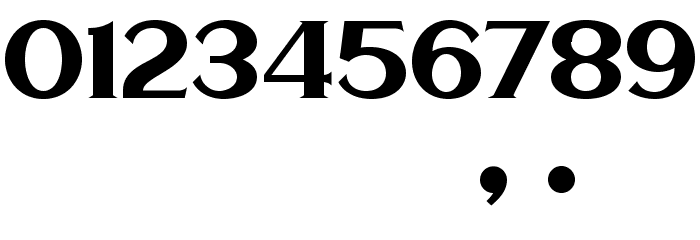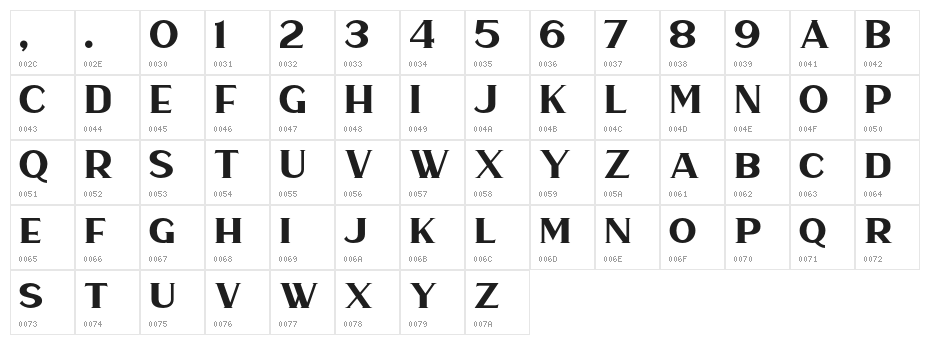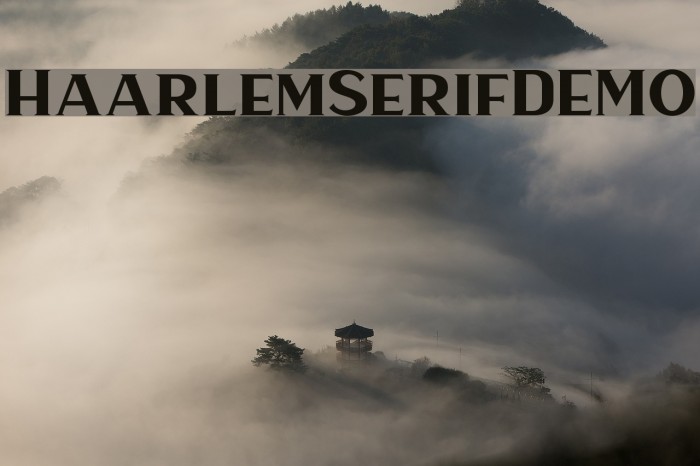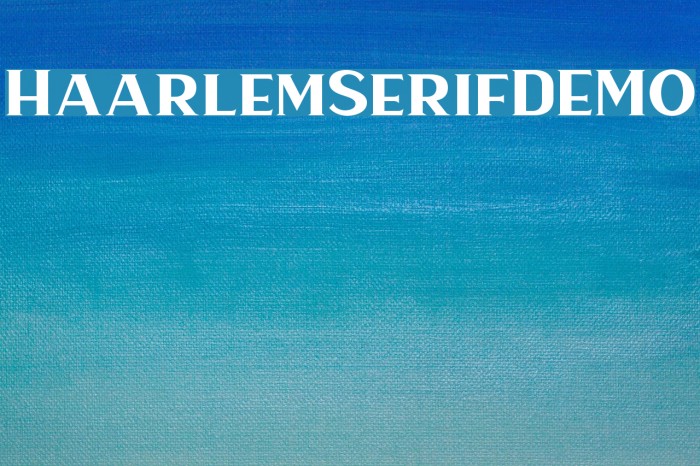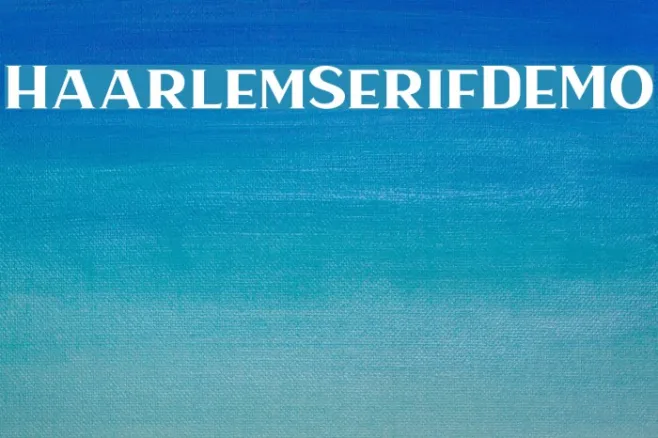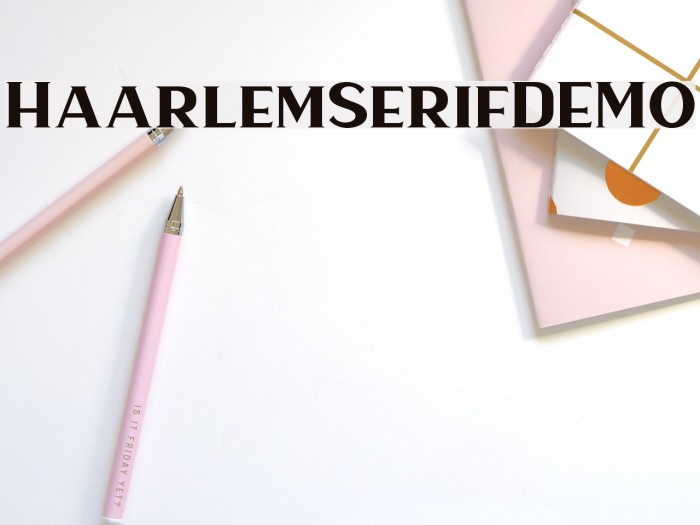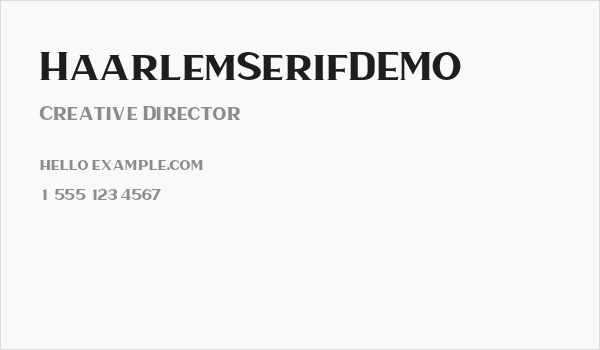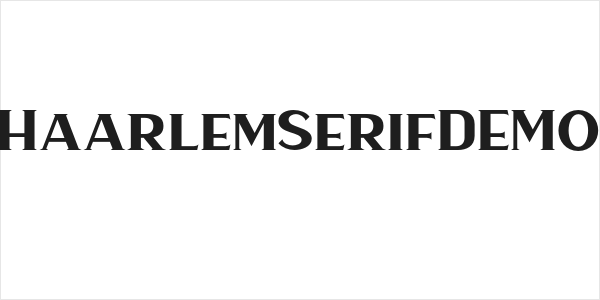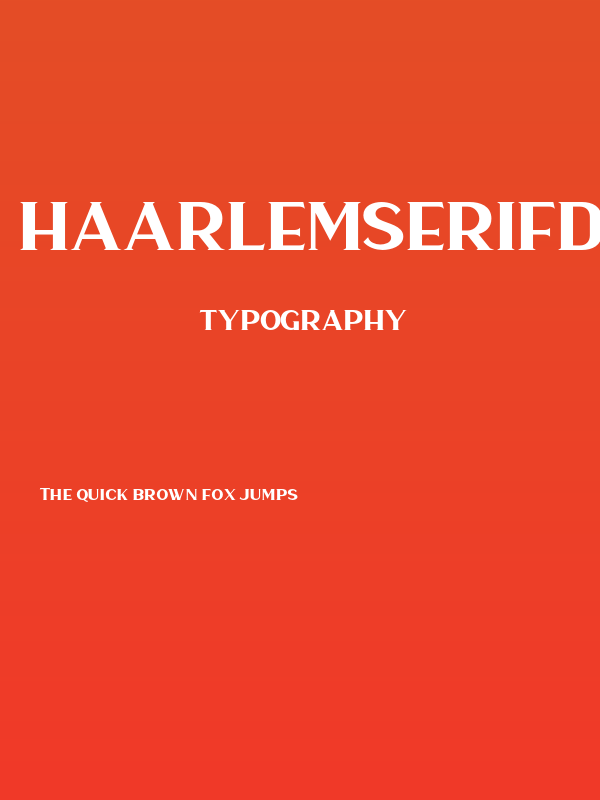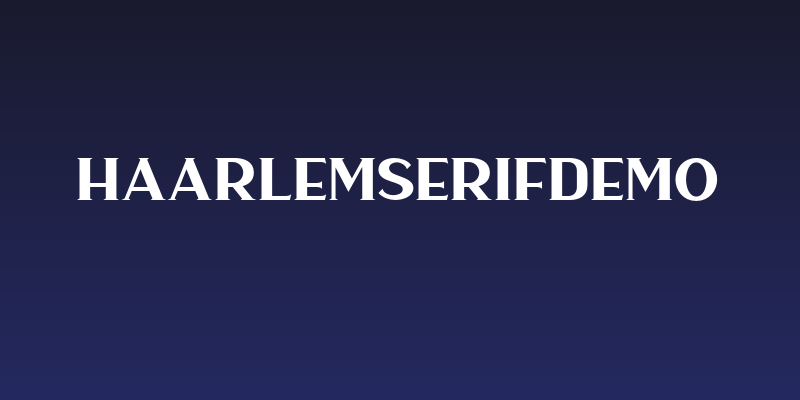
HaarlemSerifDEMO Font
HaarlemSerifDEMO Description
This font exhibits a classic serif style with strong, bold strokes and high contrast between thick and thin lines. The serifs are pronounced, adding a traditional and authoritative feel to the text. The uppercase letters are well-proportioned, with a slight flare at the ends of the strokes, enhancing readability and elegance. The numerals are consistent with the overall style, maintaining the bold and clear appearance. The punctuation marks are simple yet effective, complementing the font's overall aesthetic. This font is suitable for projects that require a formal and sophisticated look.
| Use Case | Headlines, Logos, Editorial design |
| Proposed Projects | Ideal for book covers, formal invitations, branding for luxury products, and editorial design. |